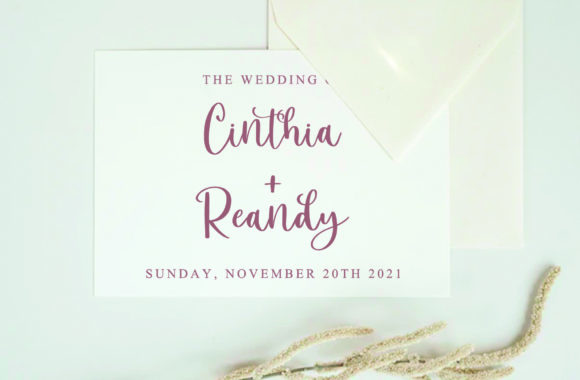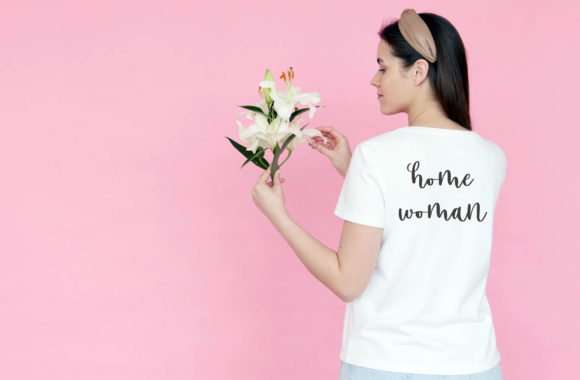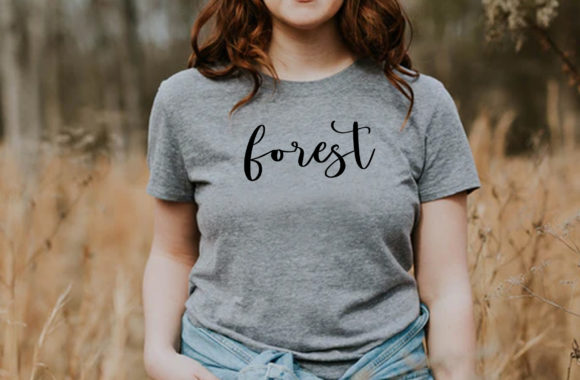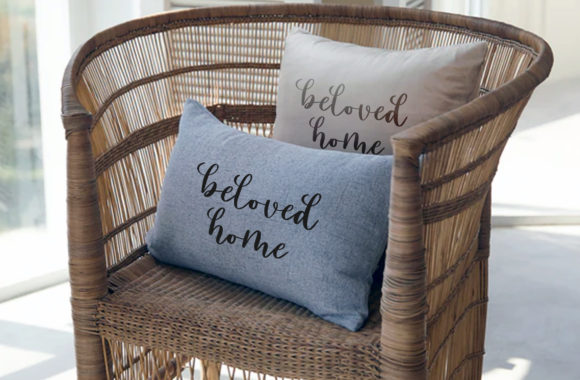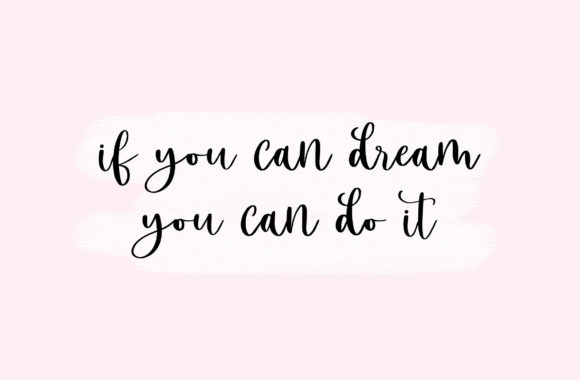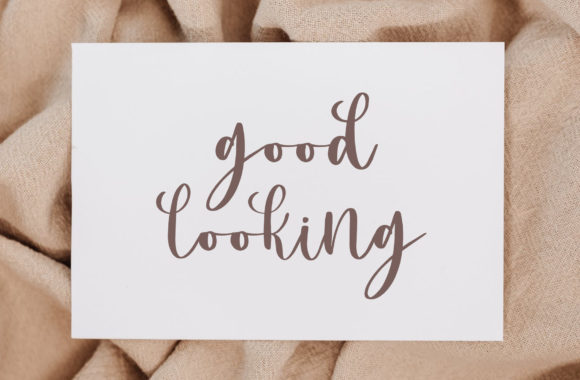
Introducing Bonatie Font: The Playful Script Font to Elevate Your Designs
Are you tired of using the same old fonts in your designs? Look no further than Bonatie Font, a lovely script font that is sure to add a touch of charm and playfulness to your creative projects. With its whimsical characters that seem to dance along the baseline, Bonatie Font is the perfect addition to any designer’s toolkit.
The Characteristics of Bonatie Font
Bonatie Font is a script font that boasts a range of charming and playful characteristics. Its characters are designed to be highly legible, making it perfect for use in a variety of design applications, from logos and branding to invitations and packaging. The font features:
• Unique character designs: Each character in Bonatie Font has been carefully crafted to be distinctive and eye-catching, making it perfect for designs that require a touch of personality.
• Playful baseline movement: The characters in Bonatie Font seem to dance along the baseline, giving the font a lively and energetic feel.
• High legibility: Despite its playful nature, Bonatie Font is highly legible, making it suitable for use in a range of design applications.
Why Designers and Crafters Love Bonatie Font
Bonatie Font has quickly become a favorite among designers and crafters, and for good reason. Here are just a few reasons why:
• Adds a touch of personality: Bonatie Font is the perfect way to add a touch of personality to your designs, making them stand out from the crowd.
• Versatile: Bonatie Font can be used in a range of design applications, from logos and branding to invitations and packaging.
How to Use Bonatie Font in Your Designs
Bonatie Font is a versatile font that can be used in a range of design applications. Here are a few ideas to get you started:
• Logos and branding: Use Bonatie Font to create a unique and eye-catching logo that reflects your brand’s personality.
• Invitations and events: Add a touch of whimsy to your invitations and event materials with Bonatie Font.
• Packaging: Use Bonatie Font to add a touch of personality to your product packaging.
• Digital designs: Bonatie Font can also be used in digital designs, such as social media graphics and website headers.
Tips for Getting the Most Out of Bonatie Font
Here are a few tips for getting the most out of Bonatie Font:
• Experiment with different colors: Bonatie Font looks great in a range of colors, so don’t be afraid to experiment and find the perfect hue for your design.
• Pair with other fonts: Bonatie Font can be paired with a range of other fonts to create a unique and eye-catching design.
• Use it sparingly: While Bonatie Font is a beautiful font, it can be overwhelming if used too much. Use it sparingly to add a touch of personality to your design.
Bonatie Font is a lovely script font that is sure to add a touch of charm and playfulness to your designs. With its unique character designs, playful baseline movement, and high legibility, Bonatie Font is the perfect addition to any designer’s toolkit. Whether you’re a seasoned designer or just starting out, Bonatie Font is a great choice for anyone looking to add a touch of personality to their designs.